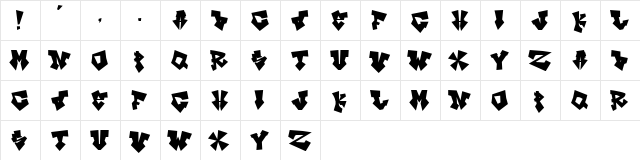
InK's ol' Bitch Regular Font Preview
InK's ol' Bitch Regular
InK's ol' Bitch Regular Font Details
Design Context for InK's ol' Bitch Typeface
InK's ol' Bitch is a composed and adaptable typeface that performs quietly and consistently across a wide range of design contexts.